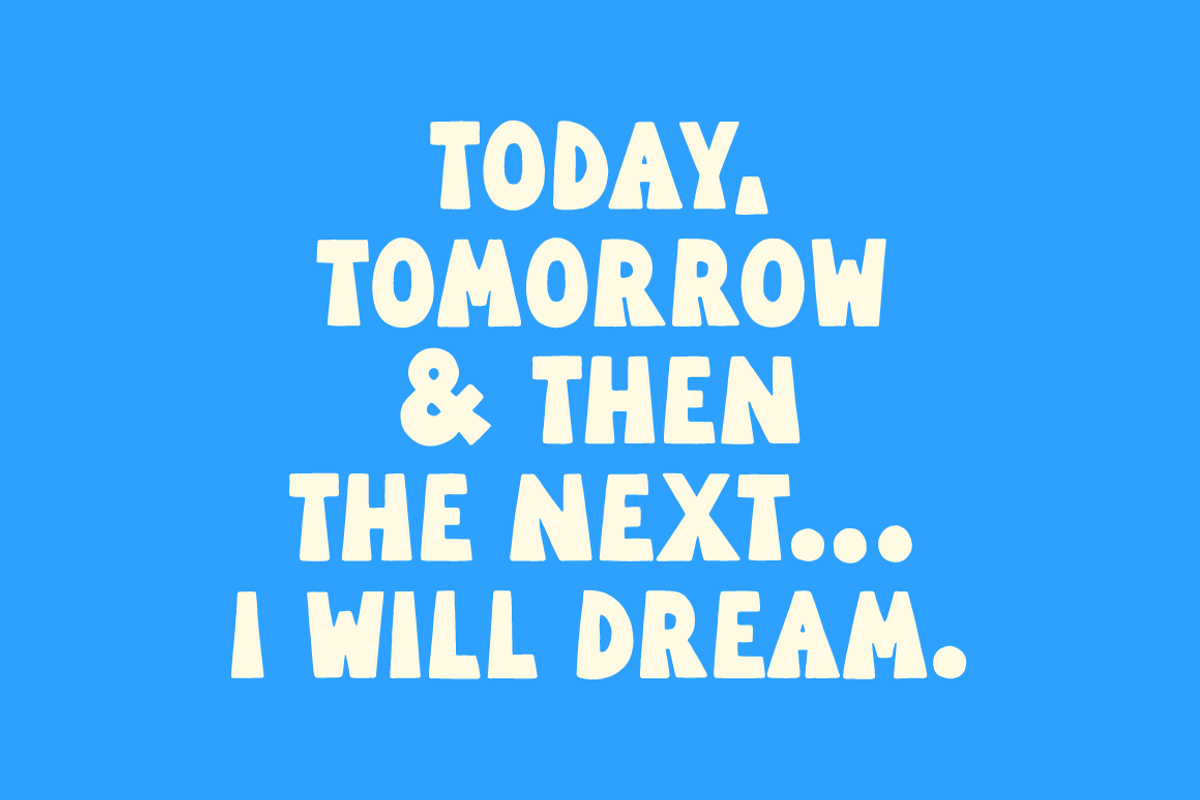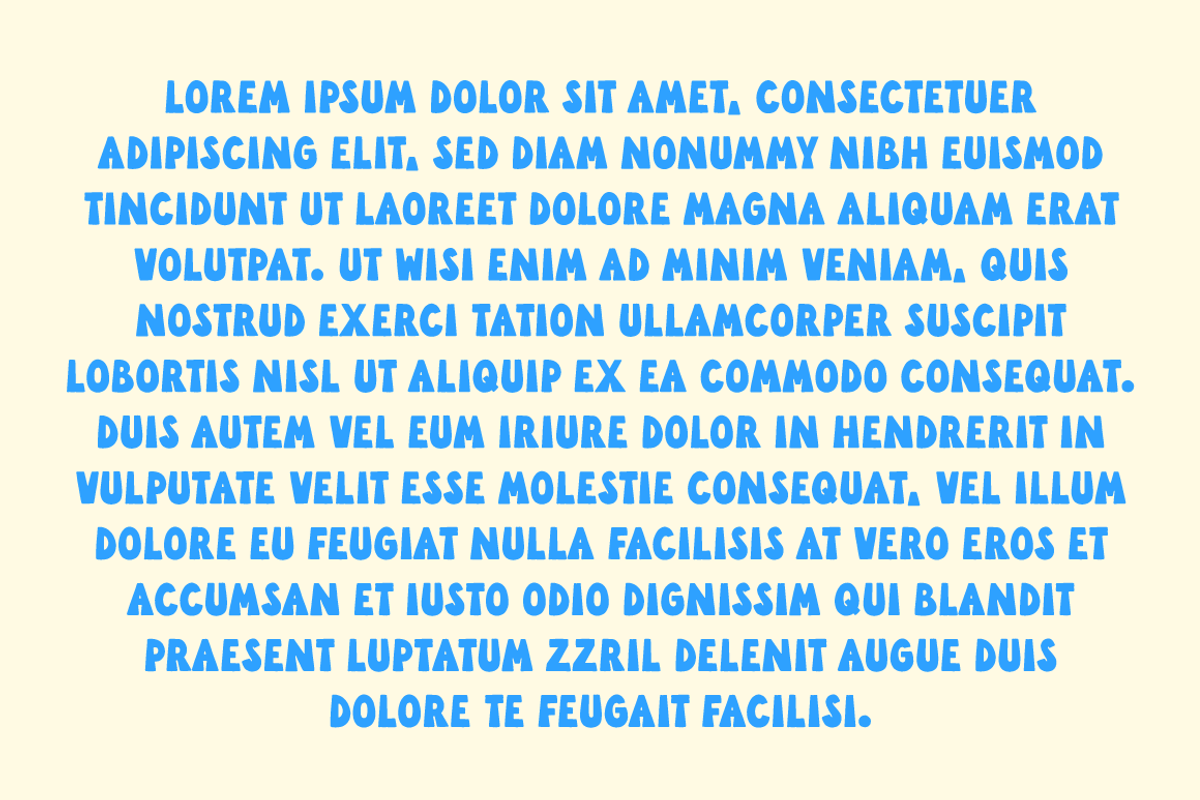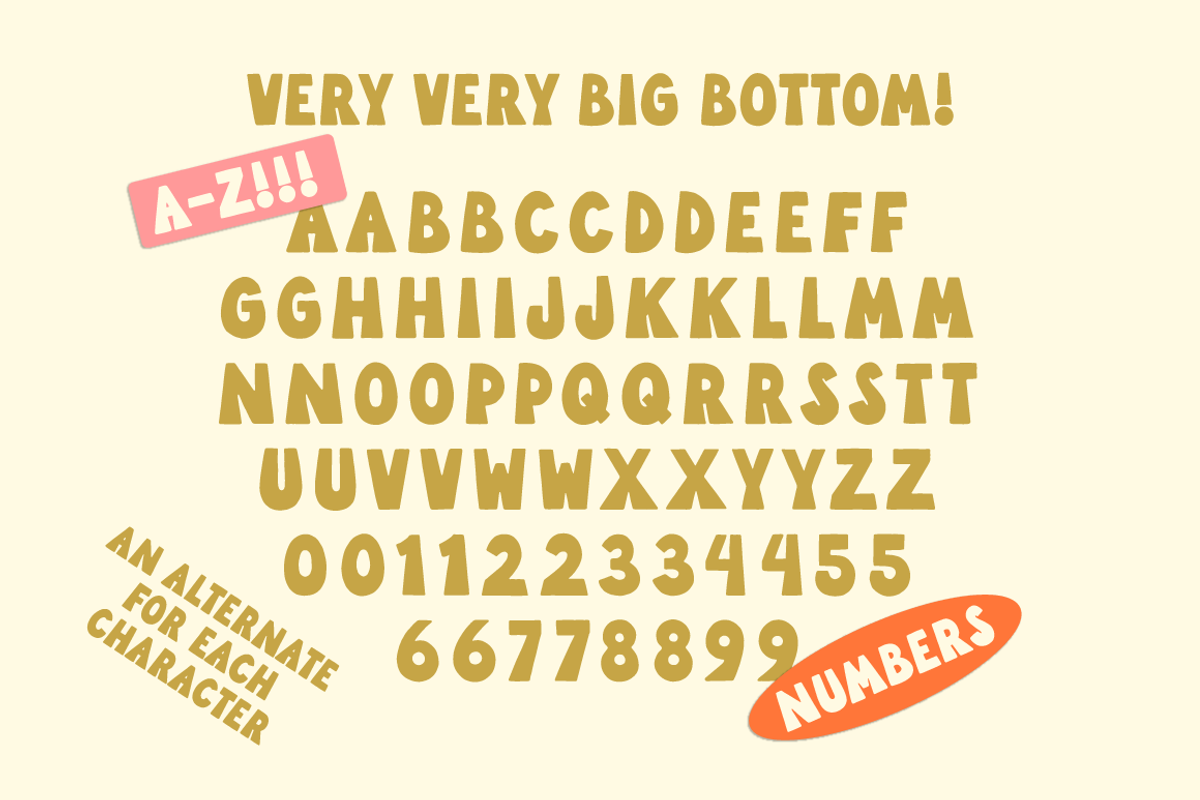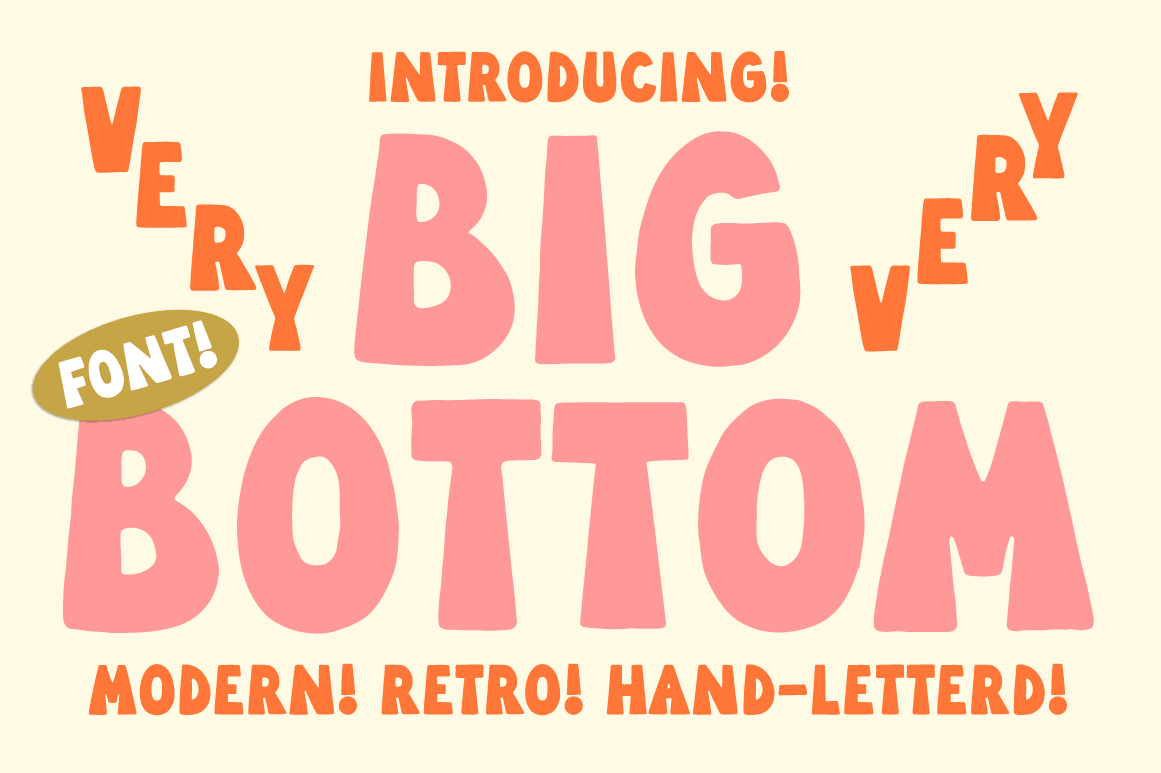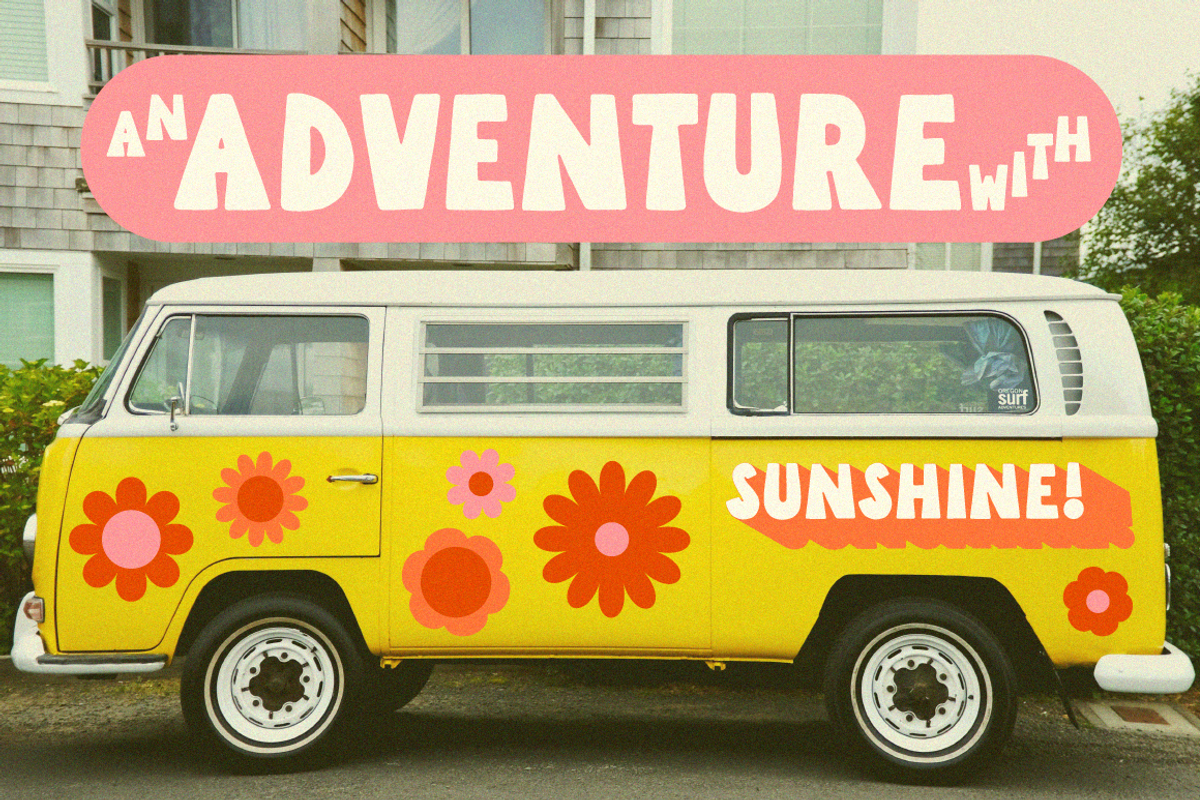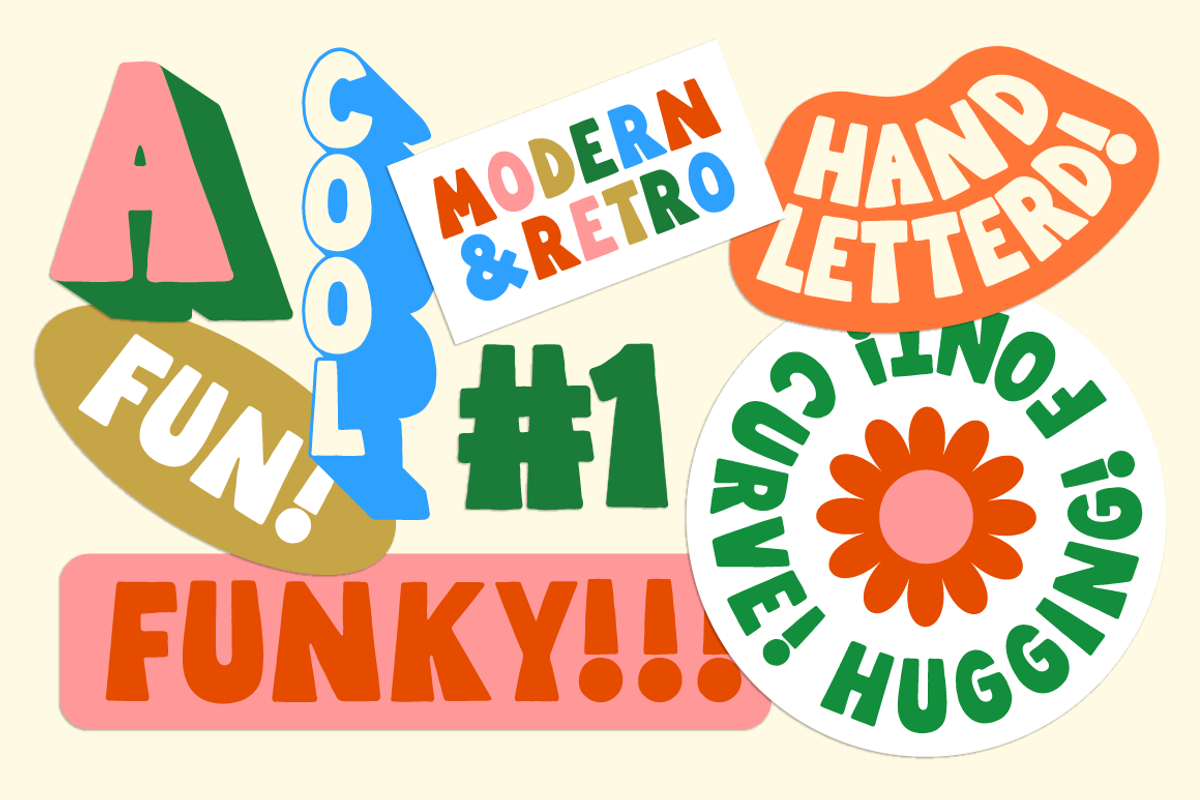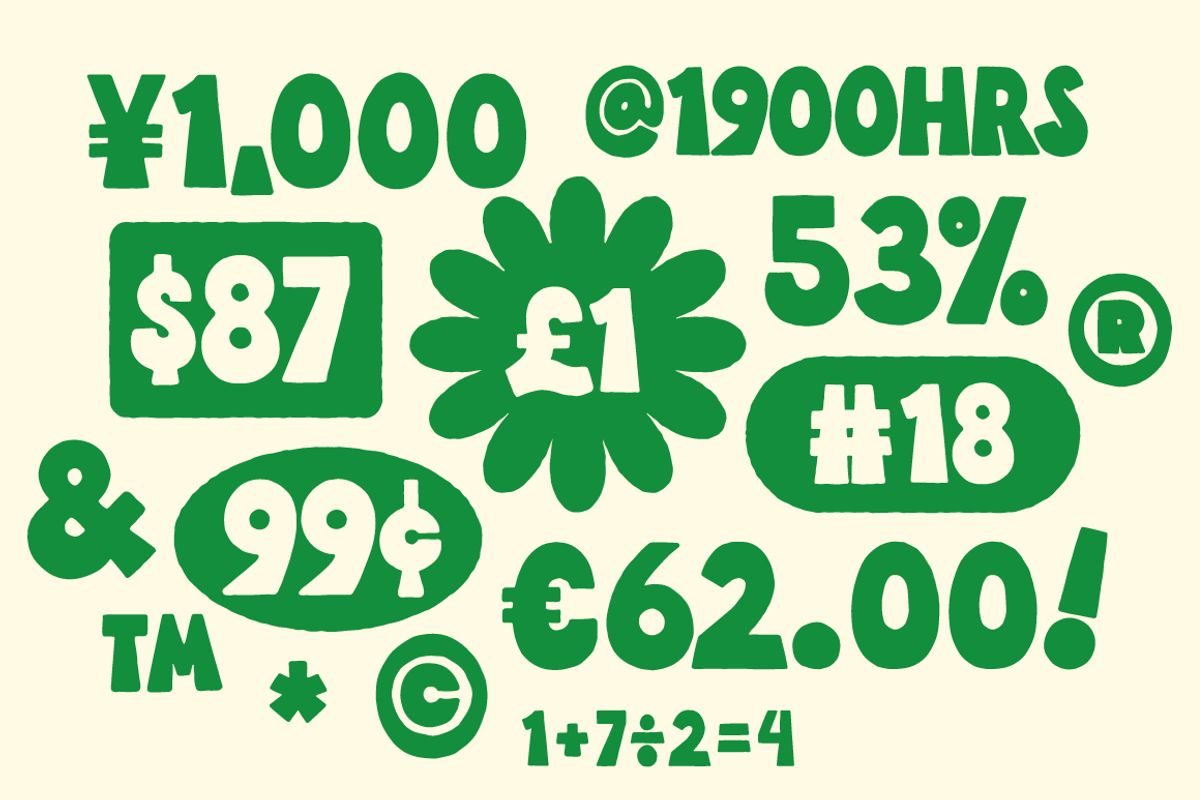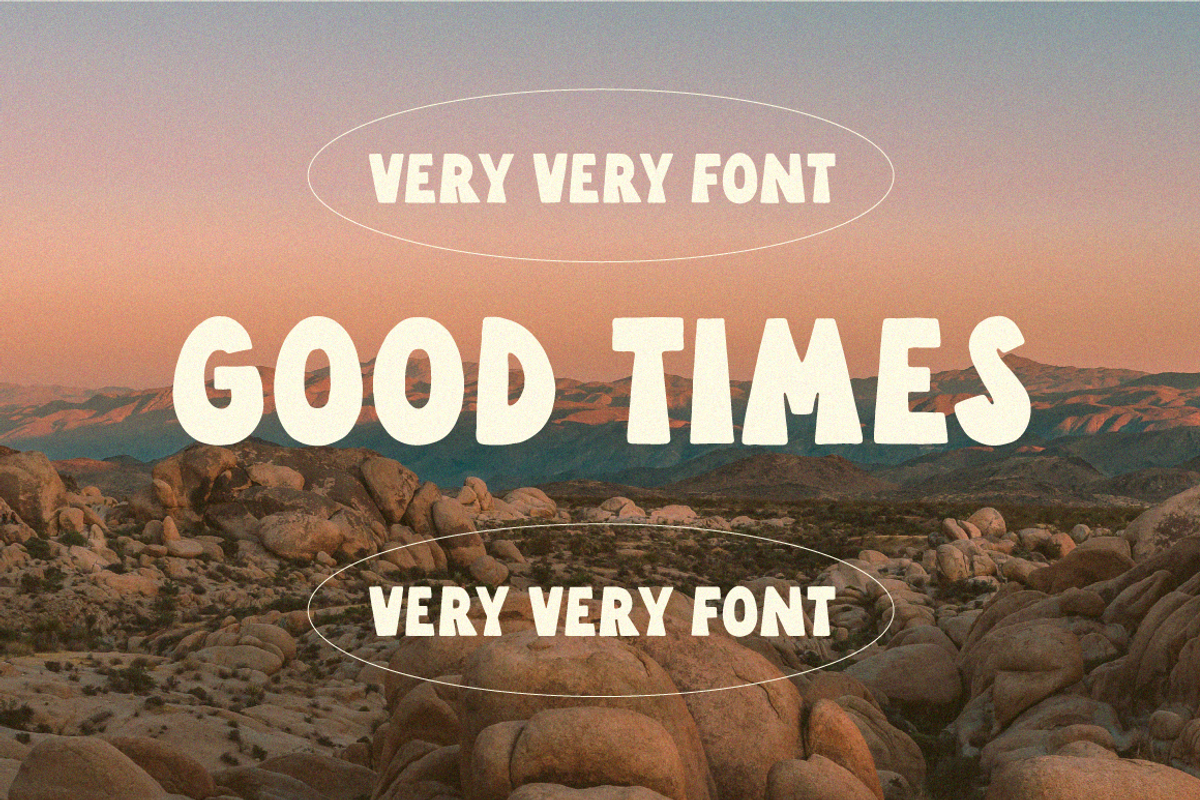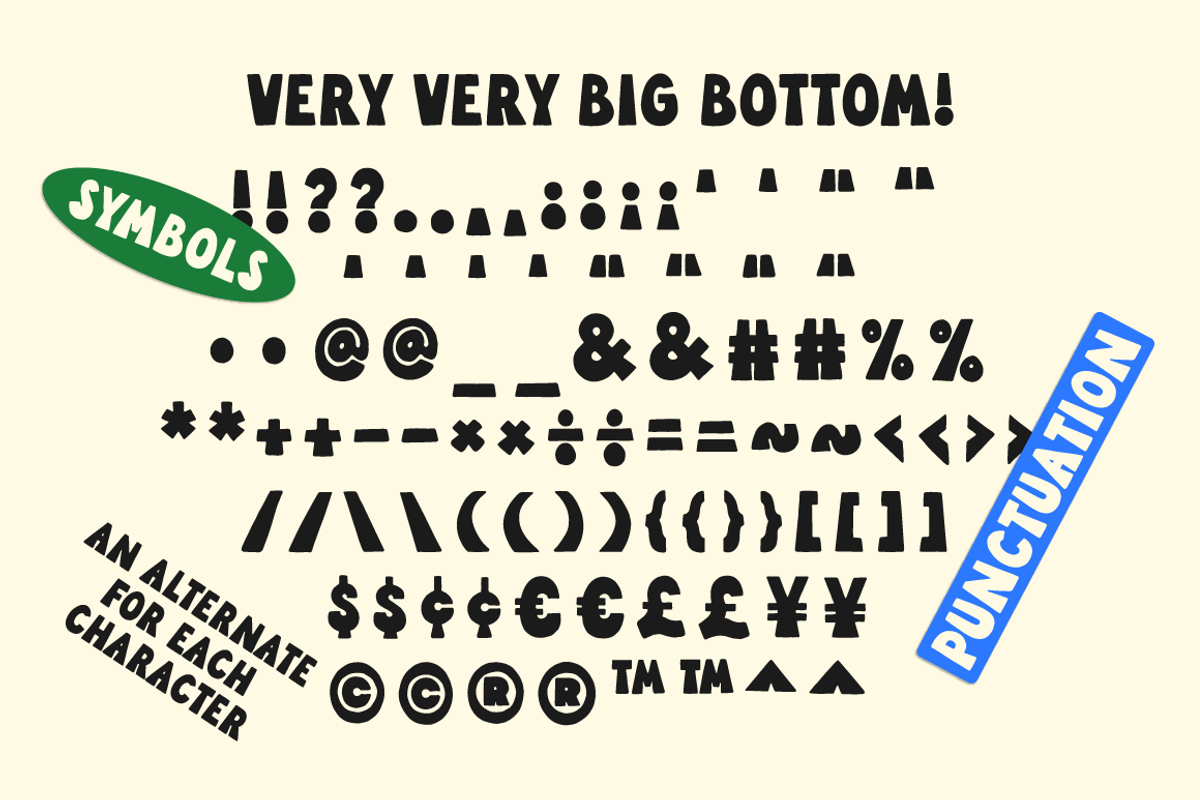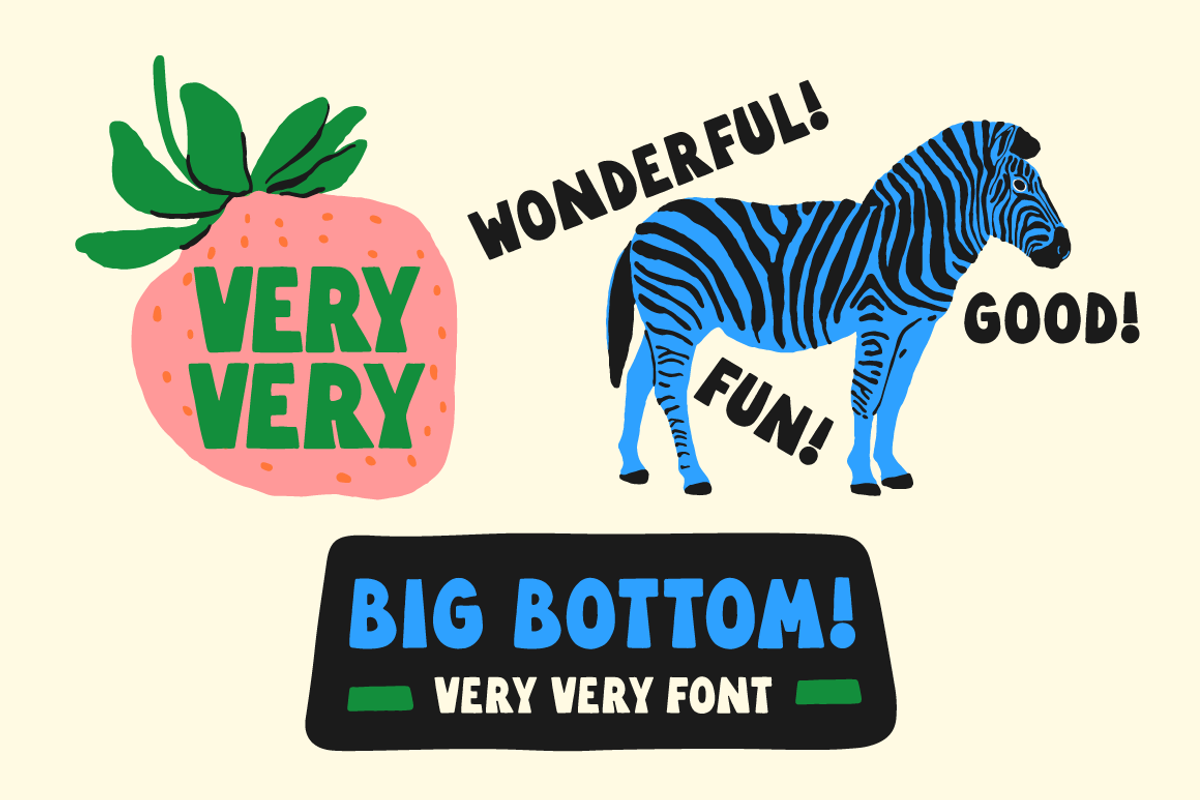
Big Bottom! Hand Lettered Font!
Very Very Big Bottom! A modern, retro, hand-lettered, big bottom font! This font was hand drawn to give you a hand lettered look, and each character has a alternated for extra hand lettered goodness! Looks great as a logo font or used for display, quotes, art, and a handmade touch. AND! The unique bottom heavy shape allows it to hug curves like a pro (see slide 2 for examples)!
What's in the font? Uppercase Letters A-Z! Numbers! Symbols! Punctuation! An Alternate For Each Character! (see slides!)